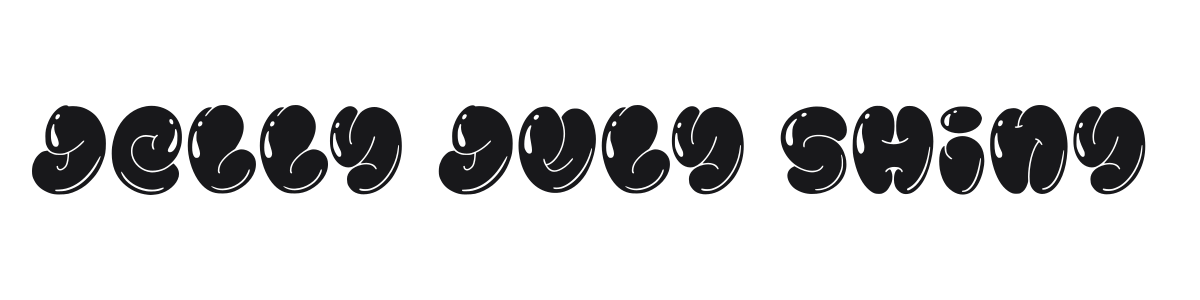
Jelly July Shiny
Jelly July Shiny is a pillowy bubble display font where every character looks like it was inflated and dipped in gloss. The shiny variant adds highlight cutouts inside the thick rounded strokes, creating a convincing jelly or liquid-plastic surface effect. It carries strong 1970s groovy bubble lettering energy with a modern kawaii twist.